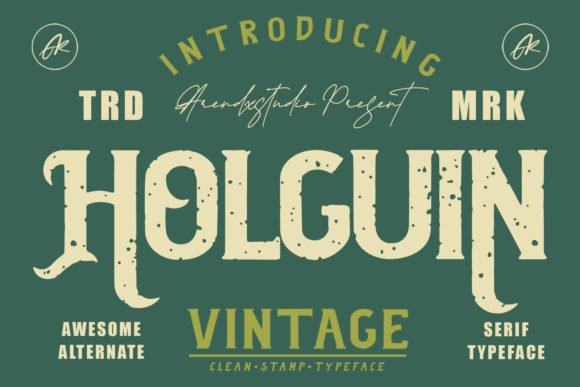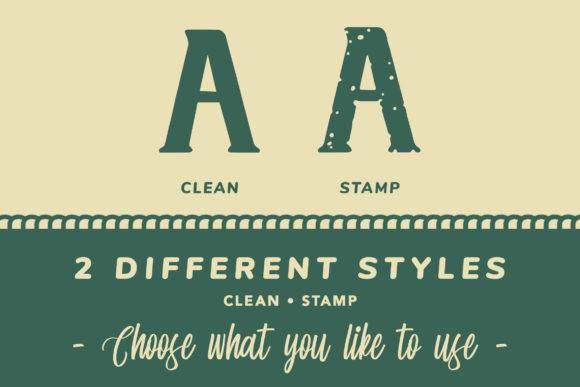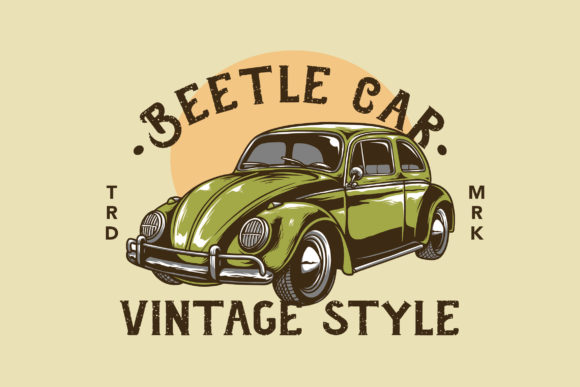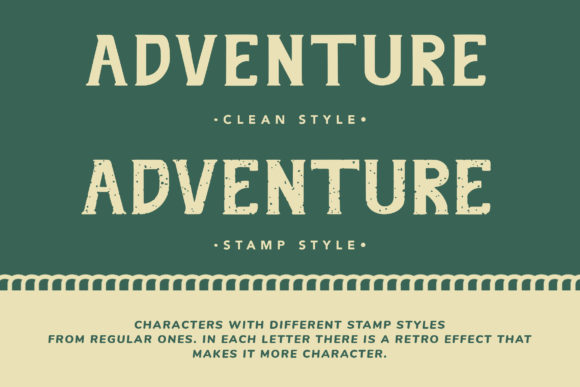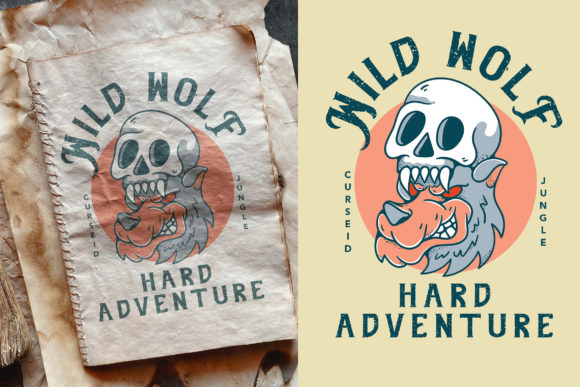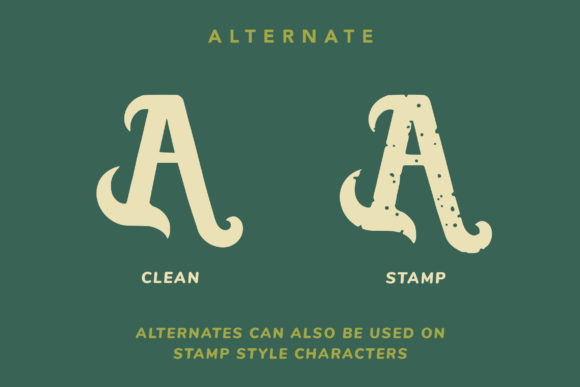
The Perfect Blend of Elegance and Edginess: Unleash the Power of Holguin Font
As a designer, there’s nothing quite like the rush of excitement that comes with discovering a new font that perfectly captures the essence of your creative vision. You’re brainstorming ideas for a bold new project, and suddenly, the perfect font pops into your mind – a font that exudes confidence, sophistication, and a hint of rugged charm.
Enter Holguin Font, a stunning display font that’s designed to make a statement. With its bold, rough texture and extensive glyph set, Holguin Font is the perfect tool for designers looking to add an extra layer of depth and personality to their work. Whether you’re crafting a logo, branding a new business, or simply experimenting with typography, Holguin Font is a valuable addition to your toolkit.
- Unique Characteristics: Holguin Font features a unique blend of modern and vintage elements, with a distinctive Cuban flair, making it perfect for designs that require a touch of tropical elegance.
- Character Set: The font includes a comprehensive character set, including Latin, Cyrillic, and Greek alphabets, as well as various punctuation marks and symbols.
- Font Style: Holguin Font is available in Regular, Bold, Italic, and Bold Italic styles, offering versatility for various design applications.
Honest Designer Review: Holguin Font
I recently had the chance to work with the Holguin Font, and I must say it’s a unique and interesting addition to my design toolkit. ✨ One of the things that stands out is its versatility – it works well in a variety of contexts, from headings to body text. It’s also highly legible, making it a great choice for long-form content. ✨
However, there are a few limitations to keep in mind. ⚠️ The font’s lack of italic and bold variations can make it difficult to add emphasis to certain sections of text. Additionally, some users may find the font’s unconventional design to be jarring or unappealing. ⚠️
Overall, I would say that the Holguin Font is a solid choice for designers looking to add some visual interest to their work. While it may not be the best fit for every project, it’s definitely worth considering for those who want to try something new. ✨
- Unique and versatile design
- Highly legible
- Works well in a variety of contexts
- Lack of italic and bold variations
- Unconventional design may not appeal to all users
Tips for Getting the Most Out of the Holguin Font
The Holguin Font is ideal for creating elegant and sophisticated designs. To get the most out of it, use it for:
- Formal event materials, such as programs and menus
- High-end branding and marketing materials
Comparison to Holguin Font: Pacifico has a more refined and elegant look, while Holguin Font has a more rustic and vintage feel.
Comparison to Holguin Font: Great Vibes has a more modern and trendy look, while Holguin Font has a more rustic and vintage feel.
Comparison to Holguin Font: Carolyna Pro has a more refined and polished look, while Holguin Font has a more rustic and vintage feel.